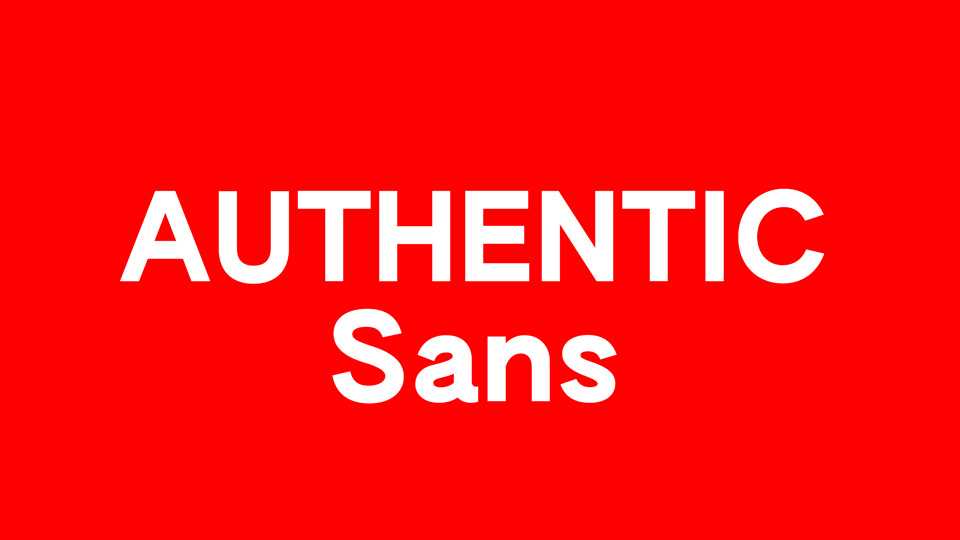
Download Authentic Sans typeface, a sans serif font family in four weights, including Condensed style, that explores the semiotic and aesthetic idiosyncrasies of the anonymous Latin glyphs.
Designer: AUTHENTIC